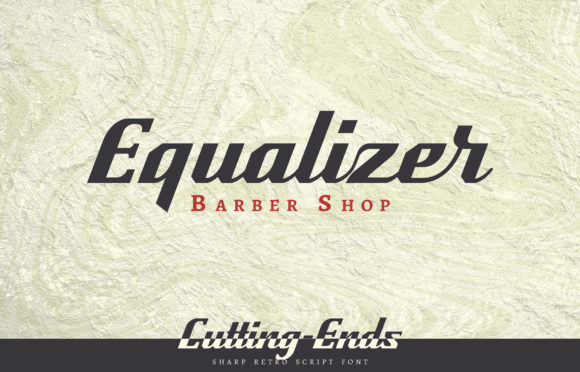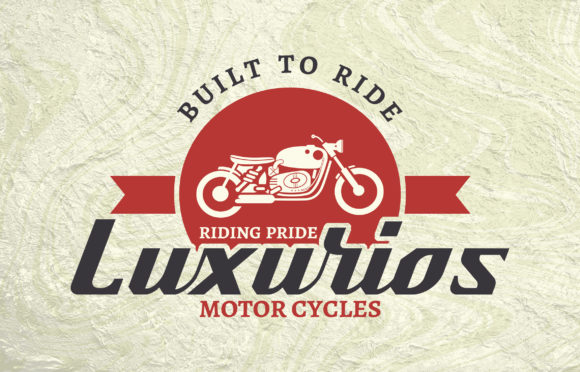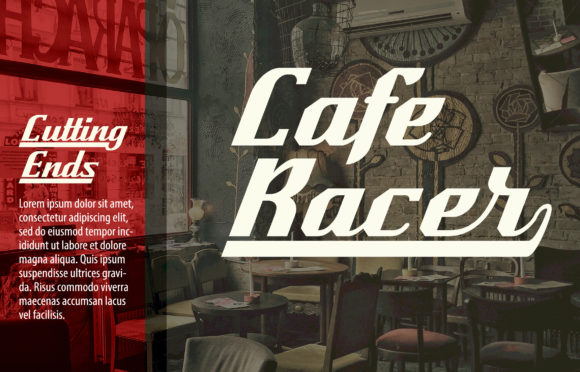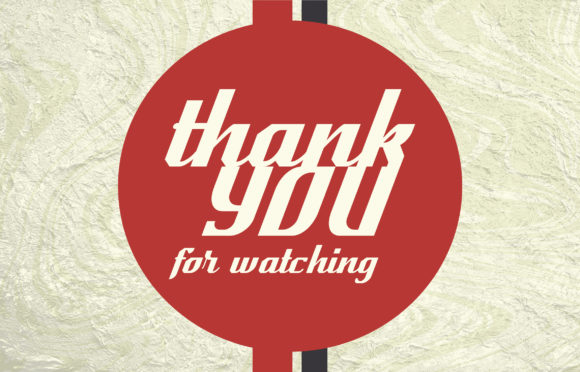
Cutting-Ends Font
About Cutting-Ends Font
Cutting-Ends is a gorgeous nostalgic script with a classy feel. Use it to turn any design idea into a true standout!